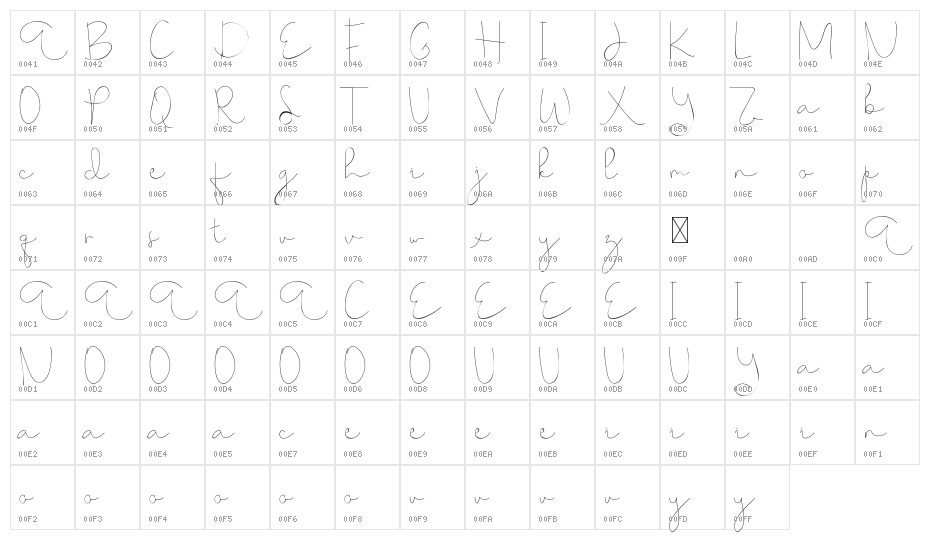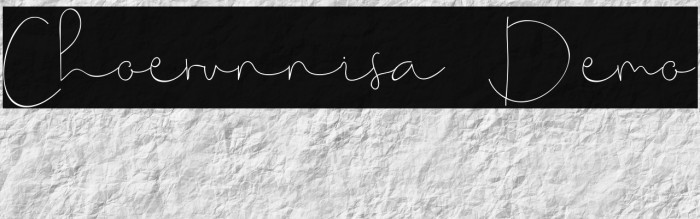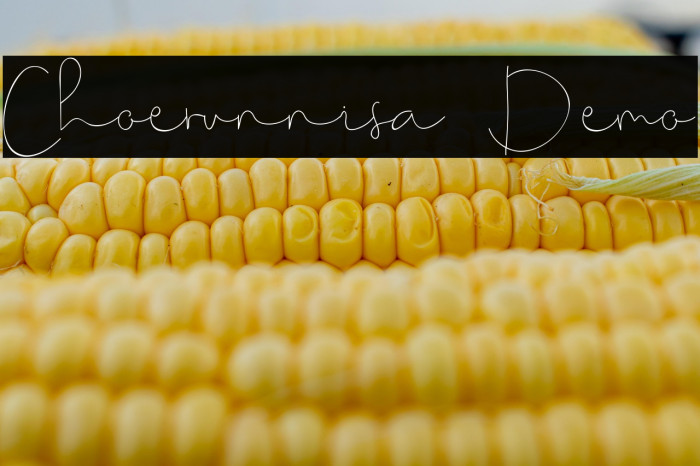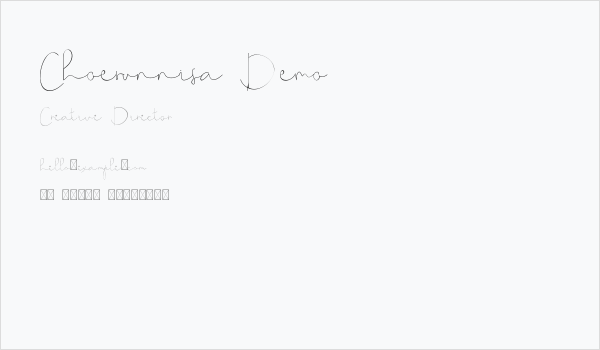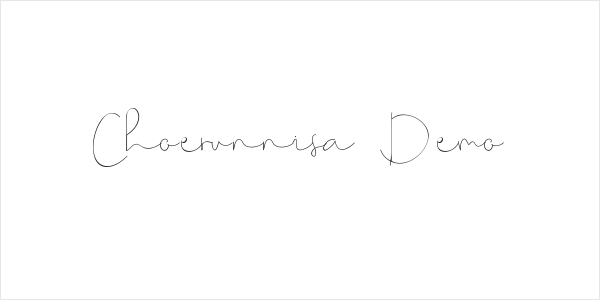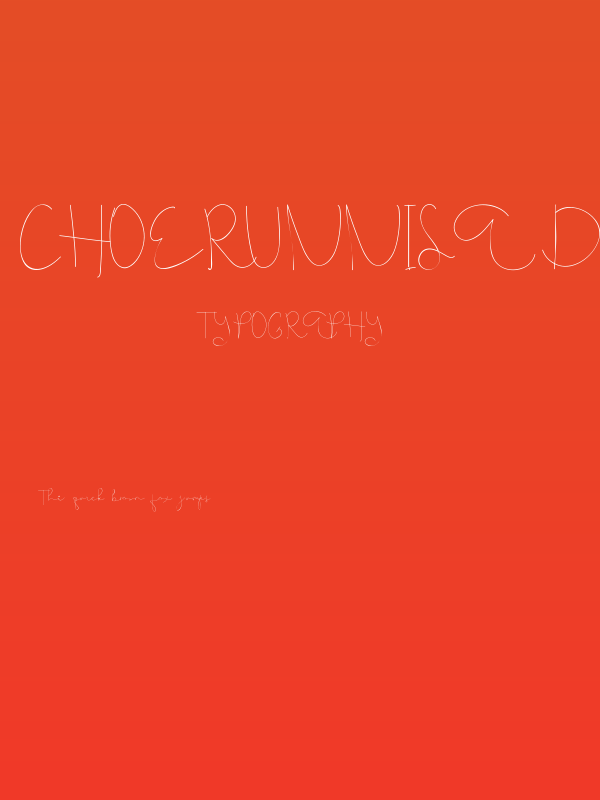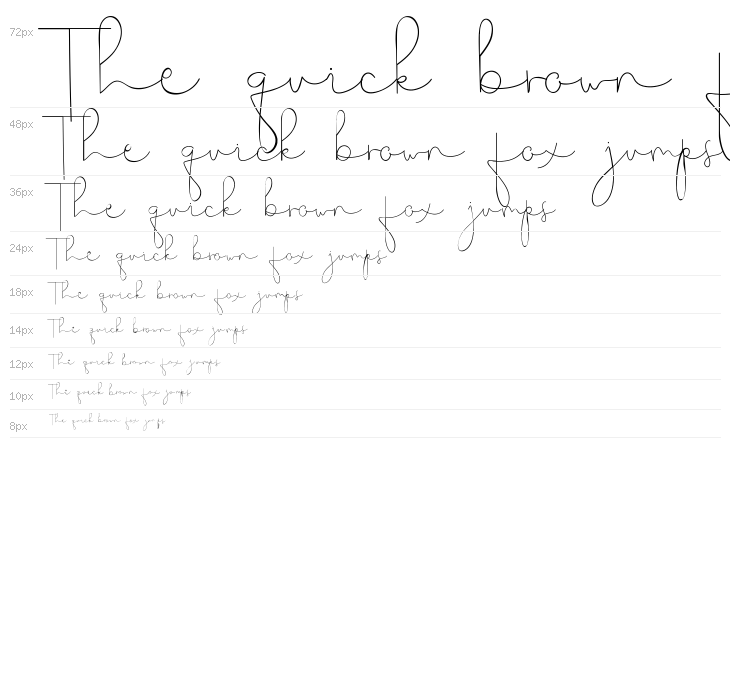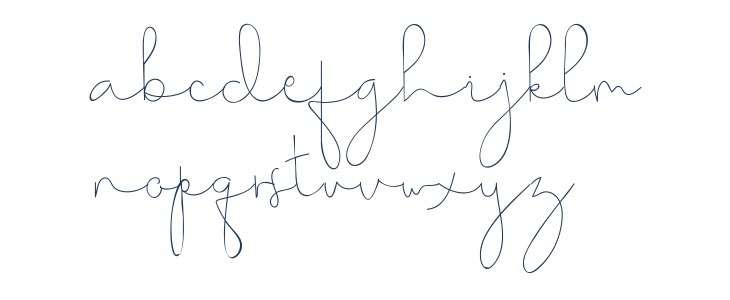
Choerunnisa Demo Font
Choerunnisa Demo Description
This font features a delicate and flowing script style, characterized by its elegant and cursive letterforms. The strokes are thin and graceful, giving it a sophisticated and airy appearance. The uppercase letters are slightly more formal, with gentle curves and loops, while the lowercase letters exhibit a more playful and whimsical nature. The overall design is reminiscent of handwritten calligraphy, making it ideal for projects that require a personal and artistic touch. The font maintains a consistent stroke width throughout, contributing to its harmonious and balanced look.
Overall StyleElegant
Use CaseLogos, Invitations, Artistic projects
Proposed ProjectsIdeal for wedding invitations, greeting cards, personal branding, and artistic projects.